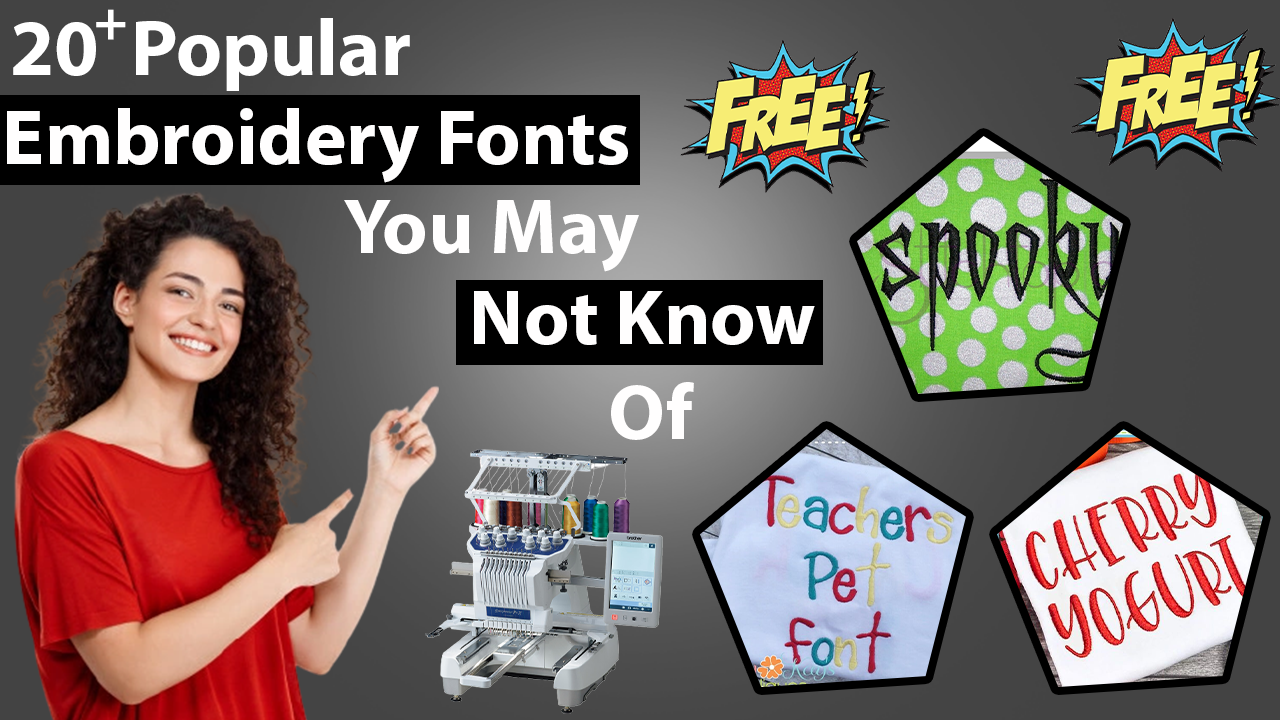
Embroidery is an art form that has been around for centuries, evolving from hand stitching to sophisticated digital methods. One of the key elements in modern embroidery is the use of ESA Embroidery Fonts, especially with software like Hatch & Wilcom. In this guide, we'll delve into the world of ESA Embroidery Fonts, understanding their significance, benefits, and how to utilize them effectively for converting images into embroidery files.
Introduction to ESA Embroidery Fonts
ESA Embroidery Fonts are a set of digital typefaces specifically designed for use in embroidery software. These fonts are compatible with various embroidery machines and software programs, including the popular Hatch & Wilcom Software. Unlike traditional fonts, ESA fonts are optimized for embroidery, ensuring crisp and clean stitching on fabric.
Understanding ESA Embroidery Fonts
What are ESA Embroidery Fonts?
ESA Embroidery Fonts are digital typefaces created with specific characteristics suitable for embroidery. They are often vector-based, allowing for smooth scaling and resizing without loss of quality. ESA fonts come in a variety of styles and designs, ranging from classic serif fonts to modern script styles.
How do they work with Hatch & Wilcom Software?
ESA Embroidery Fonts seamlessly integrate with Hatch & Wilcom Software, providing users with a wide range of options for adding text to their embroidery designs. These fonts can be easily imported into the software and customized according to the user's preferences, including size, color, and spacing.
Benefits of ESA Embroidery Fonts
Utilizing ESA Embroidery Fonts offers numerous advantages for embroidery enthusiasts, both beginners, and professionals.
Versatility
ESA fonts come in a diverse range of styles, making them suitable for various embroidery projects, from monogramming to intricate designs. Whether you're creating a personalized gift or embellishing garments, ESA fonts offer versatility in design options.
Professionalism
The use of ESA Embroidery Fonts elevates the professionalism of embroidery projects. With their clean and precise stitching, these fonts add a professional touch to any design, making it look polished and refined.
Time-saving
ESA fonts streamline the embroidery process, saving time for users. Instead of manually digitizing text, users can simply select a font from the ESA library and customize it to fit their design, significantly reducing production time.
How to Use ESA Embroidery Fonts in Hatch & Wilcom Software
Using ESA Embroidery Fonts in Hatch & Wilcom Software is straightforward, thanks to the user-friendly interface and robust features.
Converting images to embroidery files allows for greater creative freedom and customization in embroidery projects. It enables users to replicate intricate details and complex designs with precision.
Techniques for converting images to embroidery files
There are various techniques for converting images to embroidery files, including manual digitizing and automatic conversion software. Manual digitizing involves tracing the image manually using embroidery software, while automatic conversion software uses algorithms to convert images into stitch data.
Using ESA Embroidery Fonts for Image Conversion
ESA Embroidery Fonts play a vital role in image conversion, offering enhanced precision and quality in the final embroidery design.
Compatibility with image formats
ESA fonts are compatible with a wide range of image formats, including JPEG, PNG, and BMP. This compatibility ensures that users can seamlessly integrate ESA fonts into their image conversion process.
Process for converting images to embroidery files using ESA fonts
- Import Image: Begin by importing the desired image into your embroidery software.
- Select Font: Choose an ESA font that complements the image and adds textual elements to the design.
- Position Text: Place the text strategically within the image, ensuring it enhances the overall composition.
- Adjust Settings: Fine-tune settings such as font size, color, and density to achieve the desired look.
- Preview: Preview the design to assess the placement and appearance of the text.
Conclusion
ESA Embroidery Fonts offer a versatile and efficient solution for adding text elements to embroidery designs and converting images into stitchable files. With their compatibility with software like Hatch & Wilcom and their ability to enhance the quality and precision of embroidery projects, ESA fonts are a valuable tool for both beginners and experienced embroiderers. By understanding the benefits and techniques of using ESA fonts, embroidery enthusiasts can elevate their craft and create stunning, professional-quality designs.